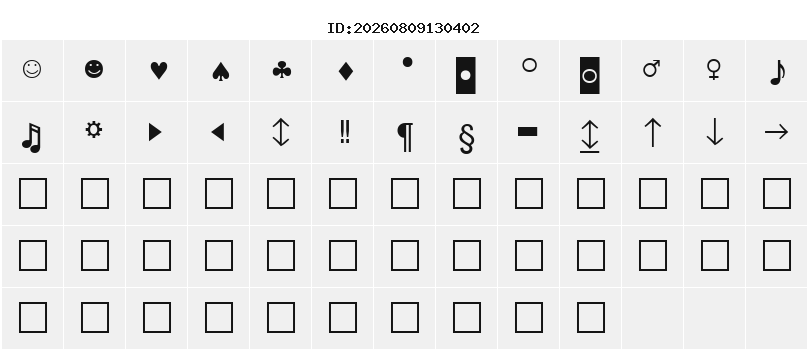
About PcEncodingLowerSH.ttf
PcEncodingLowerSH.ttf is a modern, elegant sans-serif font designed for ultimate readability and visual harmony. Perfect for branding, headlines, web design, and print materials.